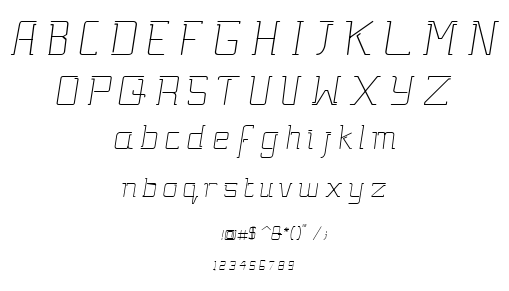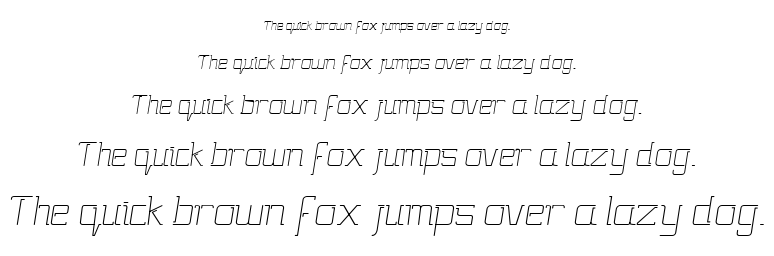
I have made this font “Gutsy”, my aim while making it was to make a font with thin lines but with strong shape, I left the shape open at some point to release the tension of alphabet. At the end this font has graceful & strong look with contemporary twist. This font is Print safe after 24px on 300dpi art work